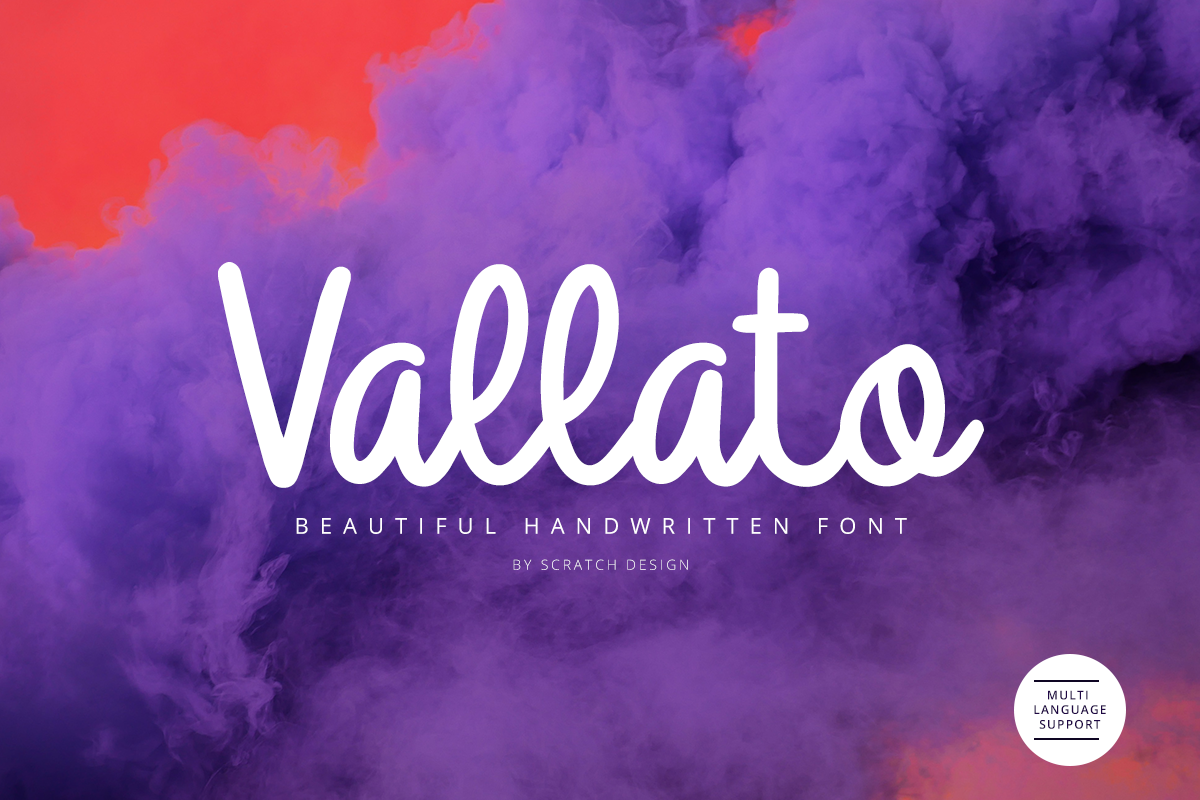
Vallato
Vallato is a handwtitten font made with elegant concept but still have dynamic shape an make this font look beautiful. Vallato very match and useful for logo design, flyers, brochure, signature, quote text and also menu design for food & beverage.
Feature:
• Number
• Punctuation
• Multilingual Support (ÀÁÂÃÄÅÇDÐEÈÉÊËIÌÍÎÏNÑOØÒÓÔÕÖUÙÜÚÛWYÝŸỲŸÆŒßÞþ)